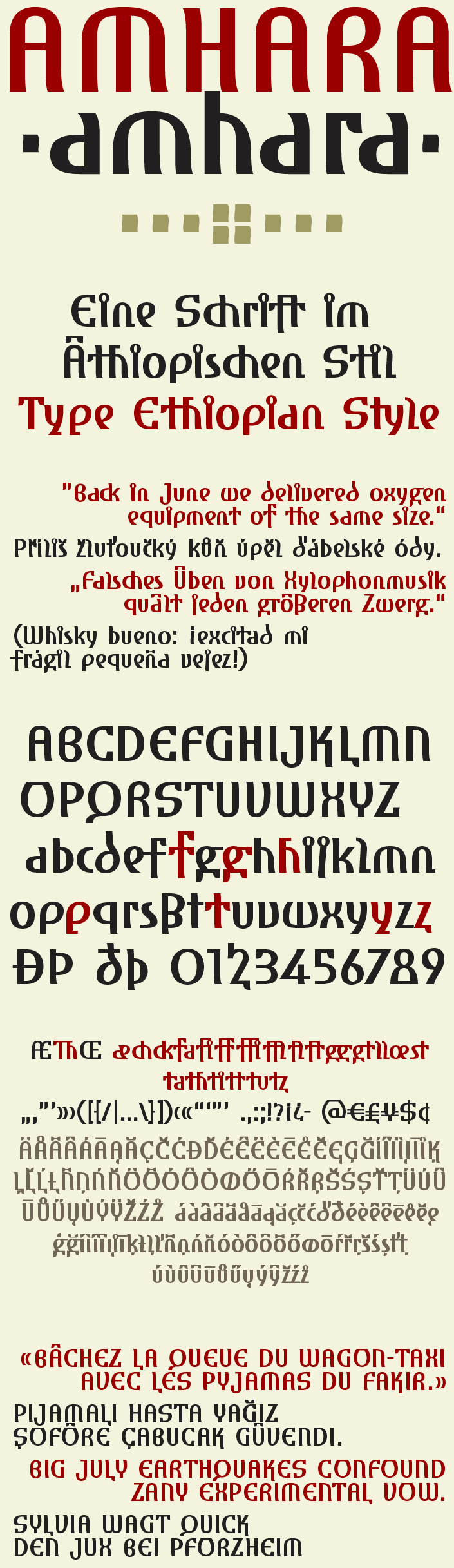
Font name: | Amhara |
Categories | Foreign look, Various |
Author: | ingoFonts |
Note by ingoFonts | |
An experiment: a "latin" alphabet modelled on the ethiopian Ge'ez script. Amhara was created by transferring the typical Amharic forms to the west European alphabet. Nearly all of the formal characteristics of Ge’ez could be carried over into the lower case letters. Typical for the Ethiopian script are the specially emphasized expanded verticals resulting from the horizontal position of the pen. The form which appears most frequently and thus influences the overall picture the most is the open bow at the bottom. The symmetrical bowl at the transition of the expanded to the light and again expanded determines the appearance of the font considerably. Also typical of Semitic scripts are the many forms of commas, serifs, rings and all kinds of additional “accessories.” With these so-called diacritic marks, the desired vowel sounds are added to the 28 basic consonant characters and consequently, 276 different syllable characters are attained. In this way there is a wealth of forms in the details which makes it possible to put together the components for European characters. At the same time, some forms hardly ever appear in Ge’ez: the individual straight stroke (as in I) and the diagonal stroke from the top right to the bottom left (only appears in »Z«). All Amharic characters have at least a hint of a stroke from the top left and a small downstroke at the bottom towards the right. To a great extent the attempt was made to retain this direction of movement in Amhara. The lower case characters have a restless appearance (very intentional) and are not fluently legible. In this way the foreign and exotic impression of the African model is still present. At ingoFonts all fonts can be downloaded. Gratis. Free. Here's the catch: More... |